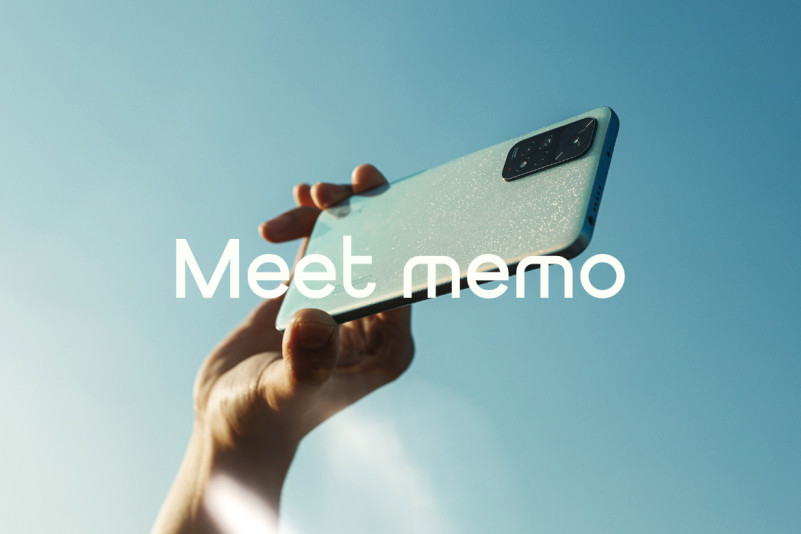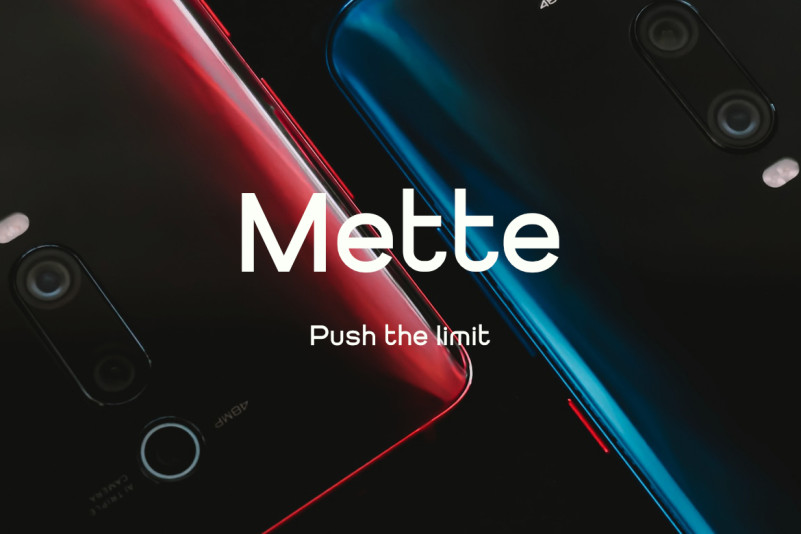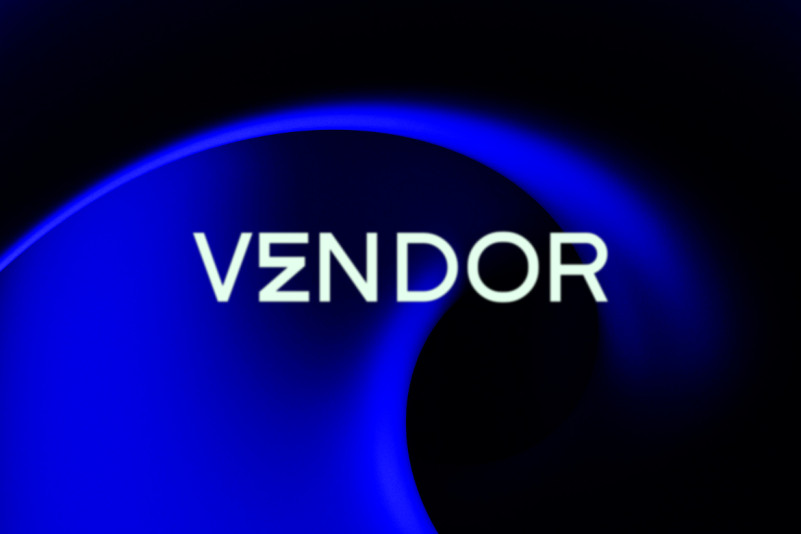
Getboreg Font
Getboreg Font is a futuristic and attractive display font that features sleek, clean lines and bold lettering that exudes confidence and innovation. It’s geometric shapes and sharp angles create a cutting-edge aesthetic that is perfect for contemporary designs in technology, fashion, or advertising.